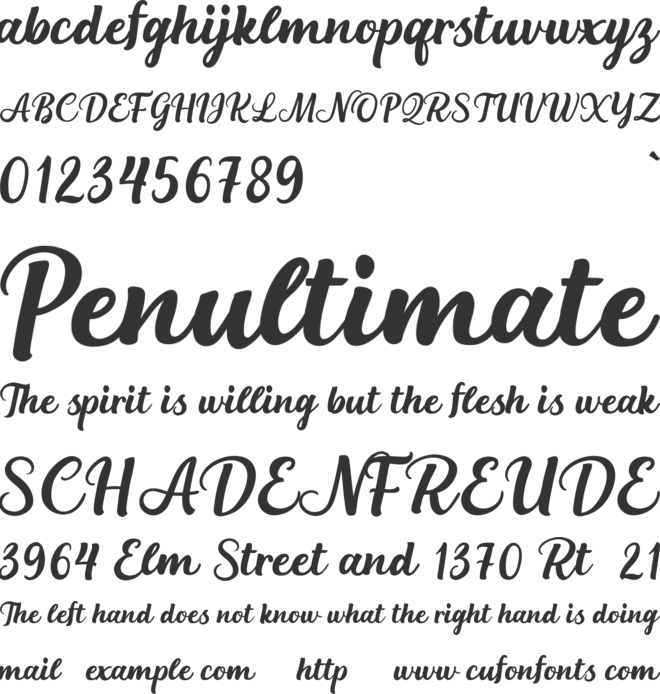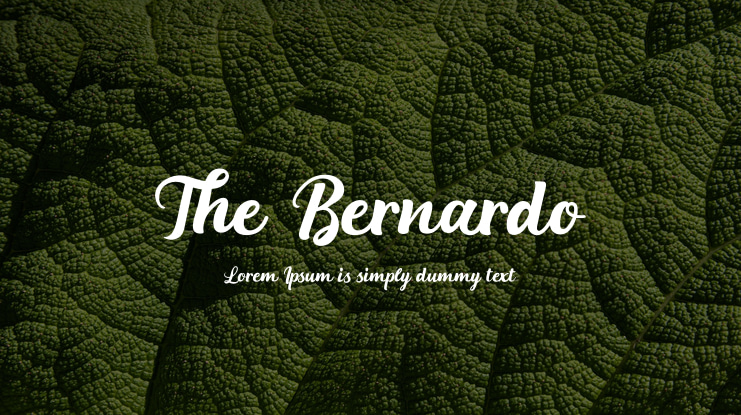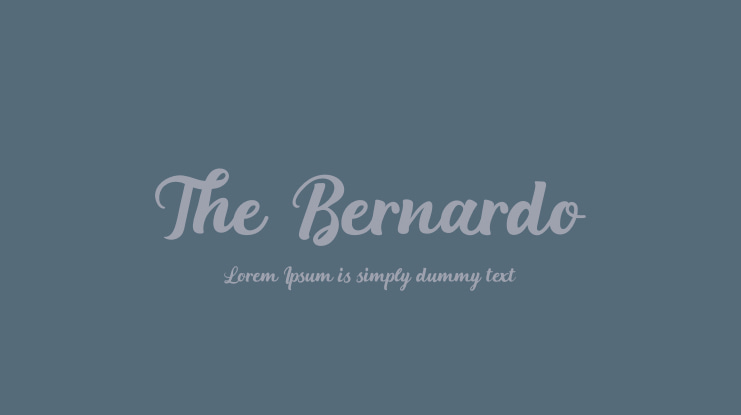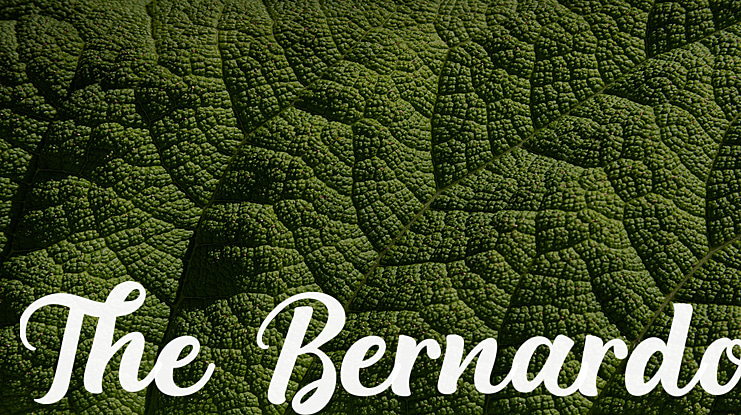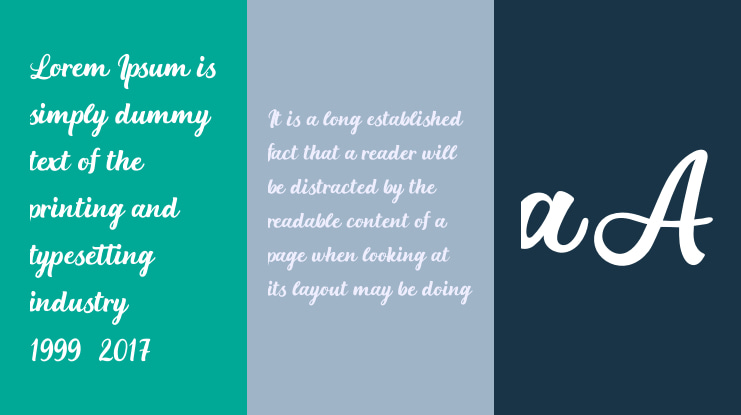
The Bernardo Font
Risca Anitawati
The Bernardo is a gorgeous and flowing handwritten font, crafted to give your headlines and logotype projects a stylish touch. This font reads as strong, confident, and dynamic and can add tons of nostalgic character to your designs. The Bernardo is PUA encoded which means you can access all of the glyphs and swashes with ease!